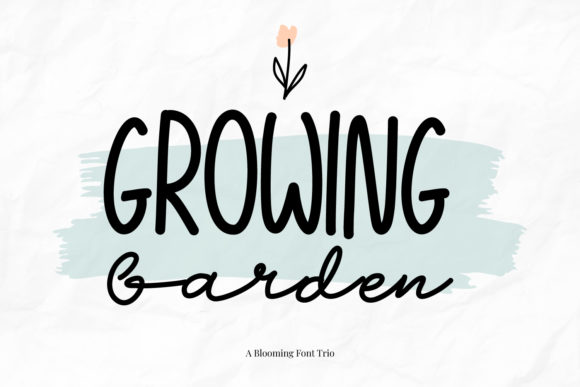
Step into a world where imagination thrives and creativity blossoms - the realm of Growing Garden Font. This exquisite script font family, crafted by the talented Helotype, is a true masterpiece that will transform your digital creations into breathtaking works of art.
Growing Garden Font exudes an aura of elegance and natural beauty, capturing the essence of handcrafted artistry. Its enchanting strokes and flowing curves evoke a sense of nostalgia and timeless charm, reminiscent of vintage love letters and heartfelt memoirs. Each character dances across the screen like a delicate petal carried by a gentle breeze, adding a touch of playful elegance to your designs.
Unleash your inner artist with Growing Garden Font, the perfect companion for projects yearning for a personal touch. Design wedding invitations that evoke the romance of a secret garden, greeting cards that radiate warmth and affection, and business cards that leave a lasting impression. The possibilities are endless, bound only by the limits of your imagination.
Dive into a world where typography meets artistry, where words come alive with personality and grace. Growing Garden Font is not just a font; it's an experience that will elevate your designs to new heights of sophistication. Let your creativity flourish and your words dance with delight as you embrace the beauty of Growing Garden Font.
Feel the magic of Growing Garden Font and let your designs bloom with elegance. Its versatility knows no bounds, lending its charm to a myriad of projects, from whimsical posters to captivating social media graphics. Discover the limitless potential of this font family and transform your digital creations into masterpieces that capture hearts and ignite imaginations.